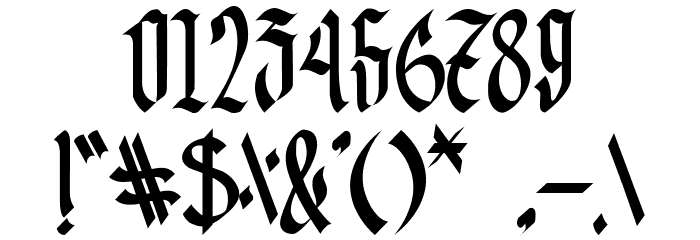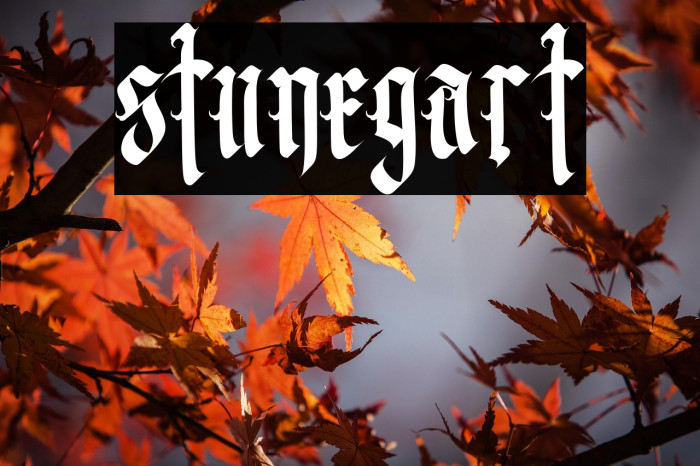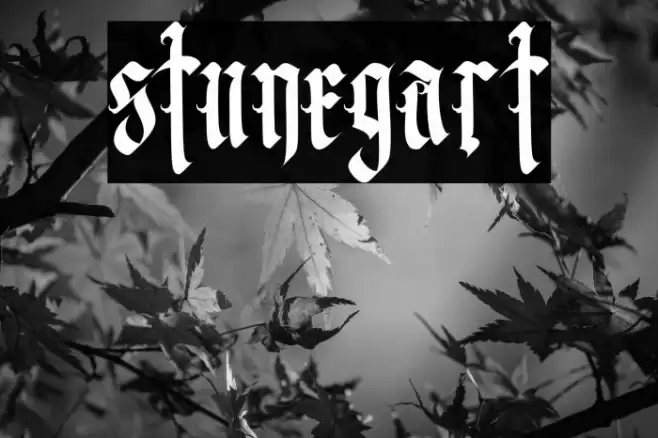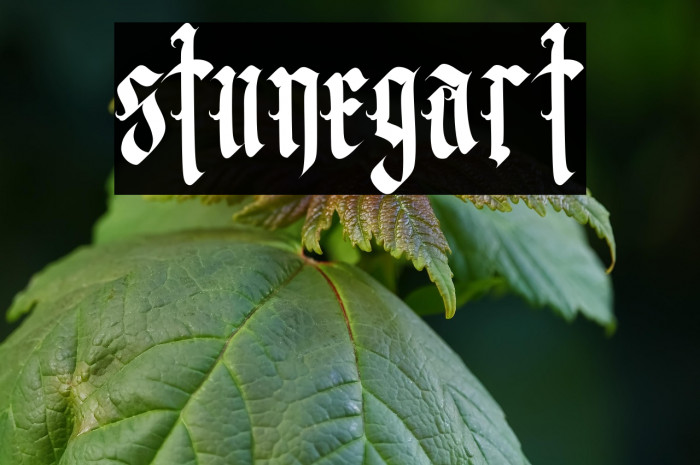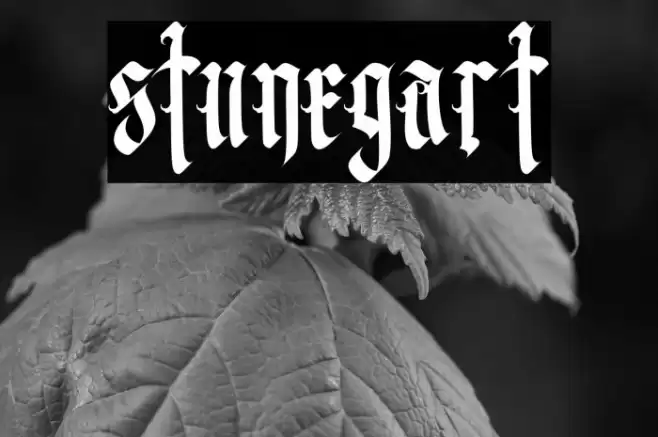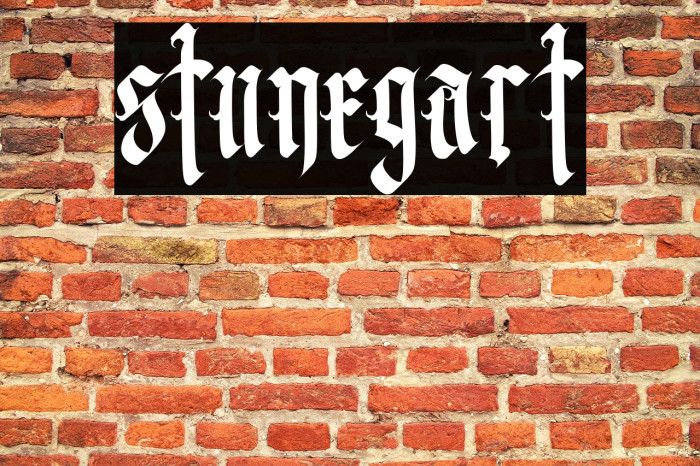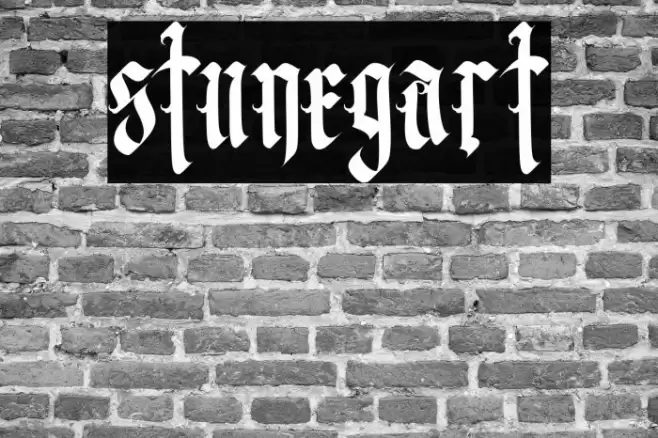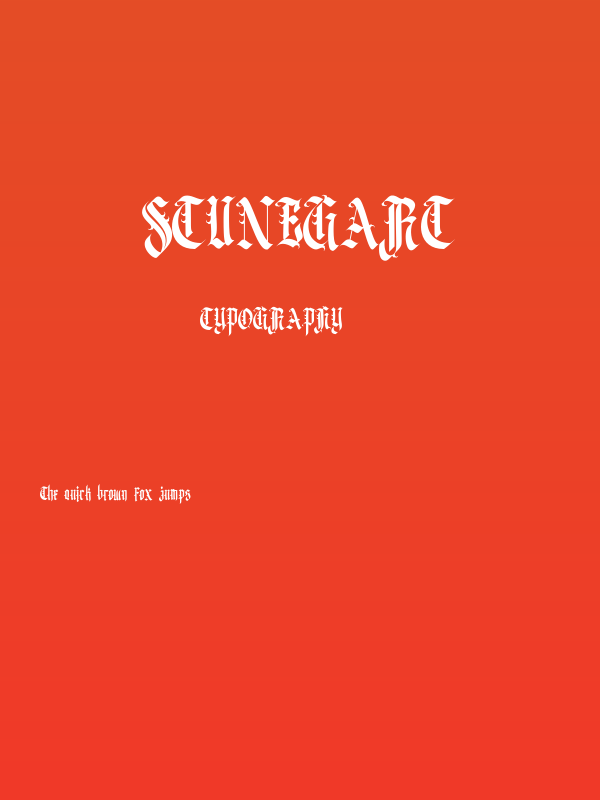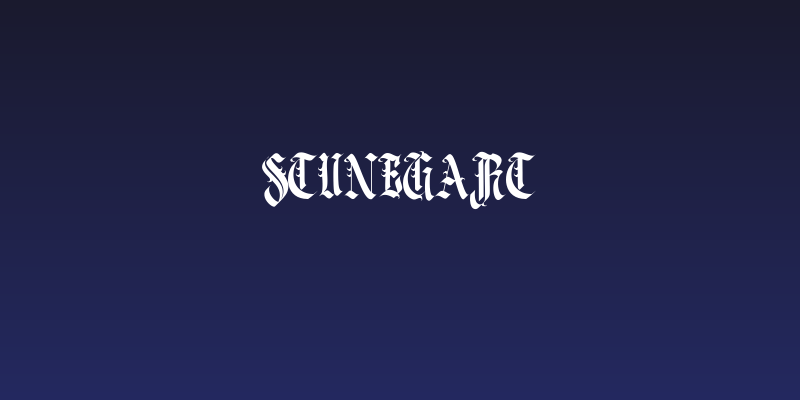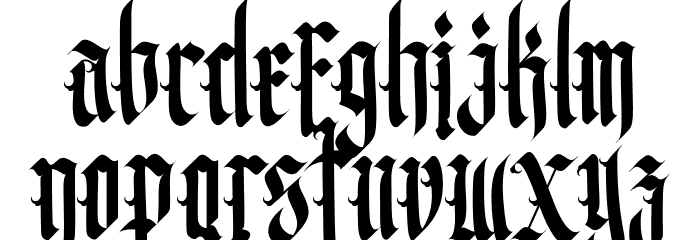
stunegart Font
stunegart Description
This font exhibits a classic blackletter style, characterized by its intricate and ornate letterforms. The strokes are bold and angular, with sharp serifs and a distinct medieval aesthetic. Each character is crafted with a high level of detail, featuring thick vertical lines and contrasting thin horizontal strokes. The overall appearance is both dramatic and historical, evoking a sense of tradition and formality. The uppercase letters are particularly elaborate, with decorative flourishes that enhance their visual impact. This font is ideal for projects that require a touch of elegance and a nod to historical typography.
| Proposed Projects | Suitable for historical documents, wedding invitations, certificates, book covers, and branding that requires a traditional or gothic touch. |